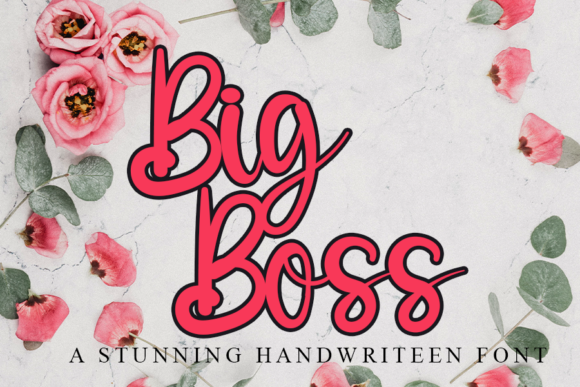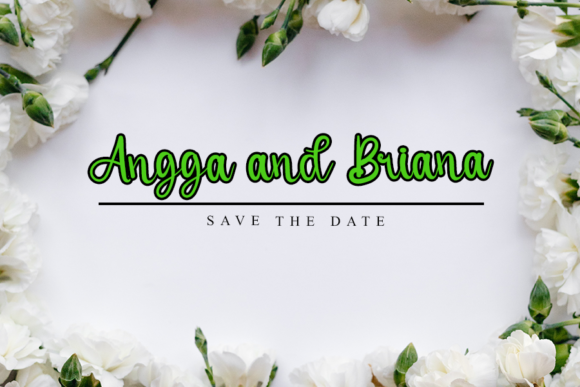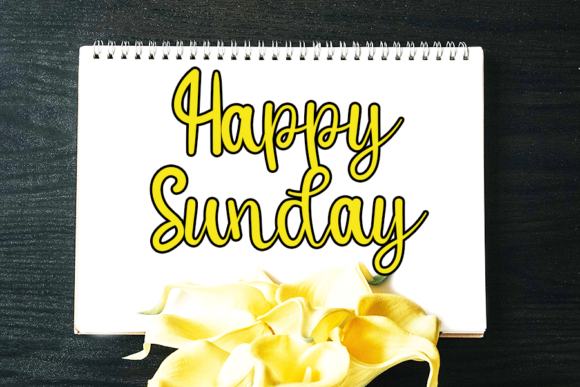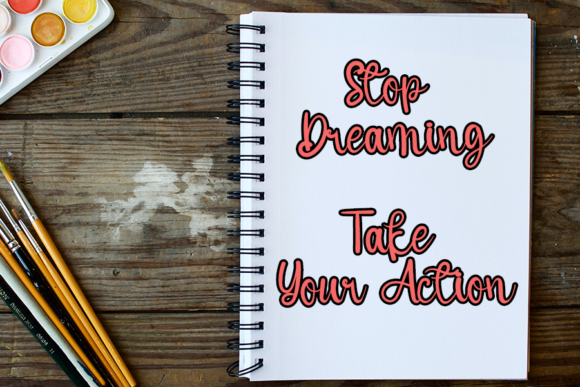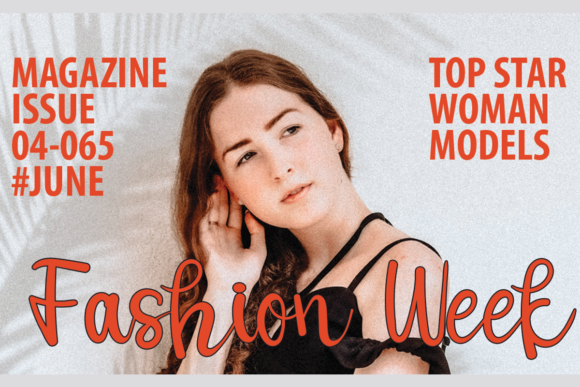
Big Boss Font
About Big Boss Font
Big Boss is a modern, fresh and whimsical handwritten font. Clean and a little bit quirky, this font is the perfect fit for all of your logos, branding, social media, and crafty DIY projects.